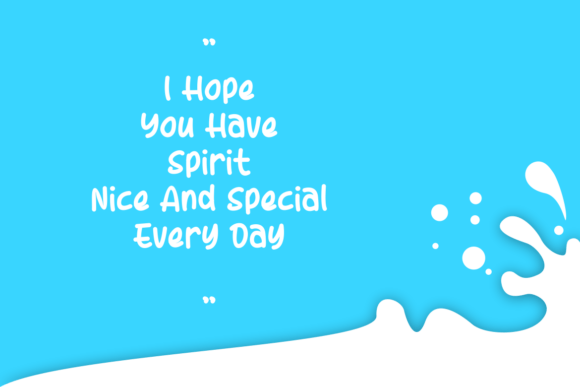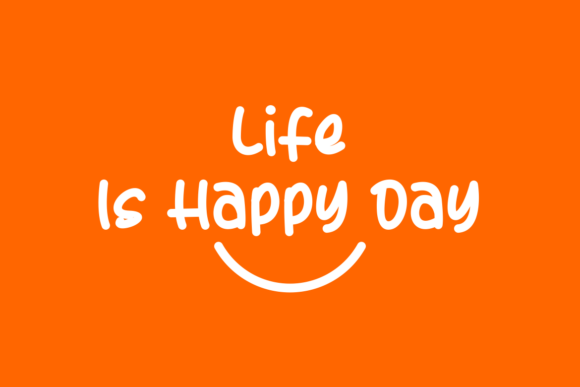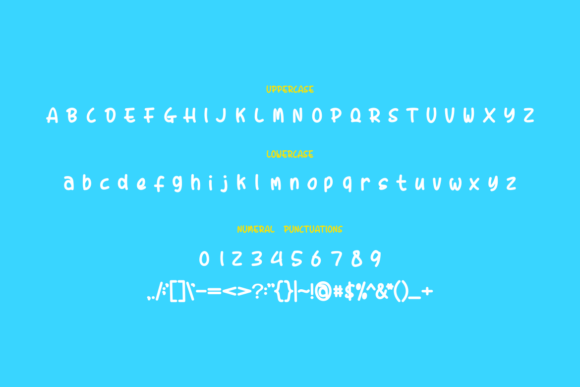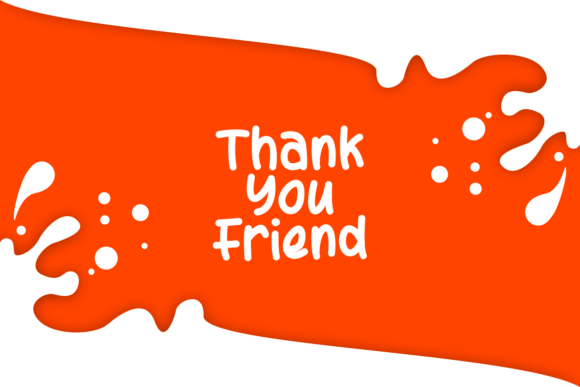
Introduction to Milkwae Font
Have you ever been working on a creative project and suddenly, the perfect font pops into your head? For designers, this moment of clarity can make all the difference between a good design and a great one. It’s like finding the missing piece of a puzzle – and for many, that piece is the Milkwae Font.
This bold, handmade font is more than just a pretty face; it’s a design resource that can elevate any project to the next level. With its thick letters and hand-drawn feel, Milkwae Font adds a personal touch that’s hard to replicate with more traditional fonts. Whether you’re creating eye-catching posters, logos, or social media graphics, Milkwae Font is sure to make a statement.
Key Features of Milkwae Font
- High-quality, hand-drawn design ideal for creative projects and artistic endeavors.
- Features a unique, handcrafted style that sets it apart from more generic font options.
- Perfect for designers, artists, and creatives seeking a distinctive and high-quality font for their next project.
Honest Review: Milkwae Font
As a designer, I’m always on the lookout for high-quality design resources that can elevate my creative project. Recently, I had the chance to experiment with the Milkwae Font, and I must say it’s a great addition to any design library.
- ✨ High-quality vector graphics that maintain crisp lines even at large sizes.
- ✨ A wide range of characters, including emojis, that can add a personal touch to your design.
- ✨ The transparent background makes it easy to overlay on any image or background.
- ⚠️ Some characters may require additional styling to ensure proper rendering.
Overall, the Milkwae Font is a great design resource that can add a unique touch to your creative project. While it may not be as comprehensive as some other fonts, its high-quality graphics and transparent background make it a valuable addition to any design library. I’d definitely recommend it for personal or commercial use.
Tips for Getting the Most Out of Milkwae Font
For the best results, use the Milkwae Font on a high-quality design resource. The font’s transparent background allows for seamless integration with your design. Experiment with different font sizes and styles to find the perfect look for your creative project.
The Milkwae Font is ideal for a variety of creative projects, including branding, logos, and typography-based designs. Its high-quality design and transparent background make it a versatile and useful resource for designers and artists.
Alternatives to Milkwae Font
Alex Brush Font is a beautiful, high-quality script font that’s perfect for creative projects requiring a touch of elegance. It’s available for free download and features a transparent background, making it ideal for use on various design elements. While it may not have the same level of sophistication as Milkwae Font, it’s a great alternative for designers looking for a more subtle look.
Great Vibes Font is a modern, high-quality font that’s perfect for designers looking for a unique and creative design resource. Its clean and minimalist design makes it ideal for use on various design elements, from logos to typography. Compared to Milkwae Font, Great Vibes Font has a more modern feel and is better suited for use on digital platforms.